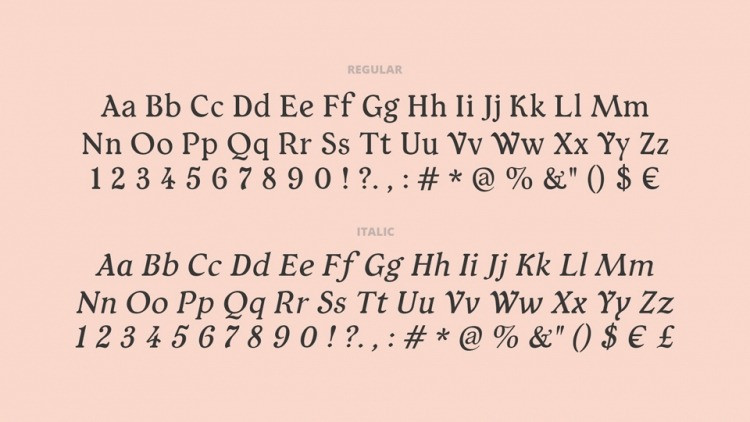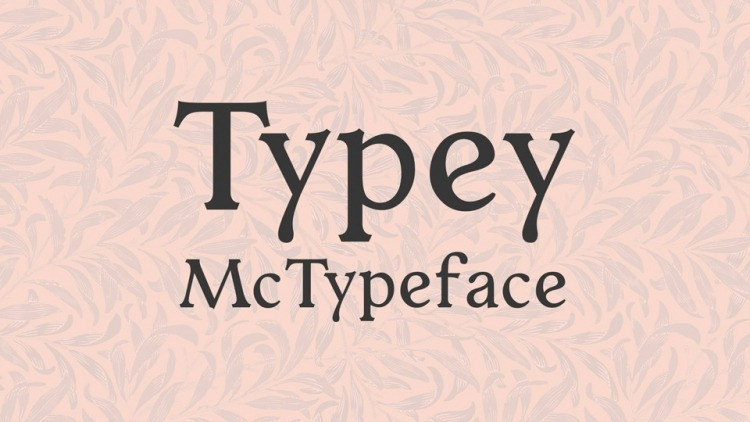
Introducing Typey McTypeface, is an elegant vintage serif typeface. It comes in Regular and Italic styles, containts a complete set of glyphs, including Opentype features and extended language support.
Typey McTypeface looks great for editoral use.